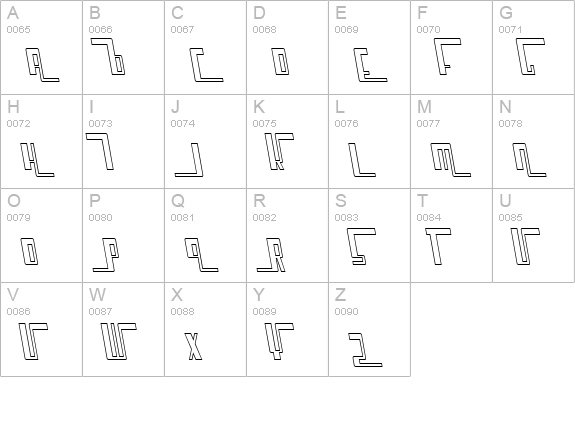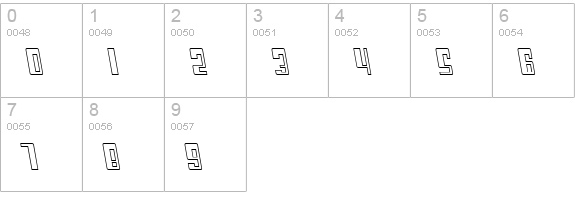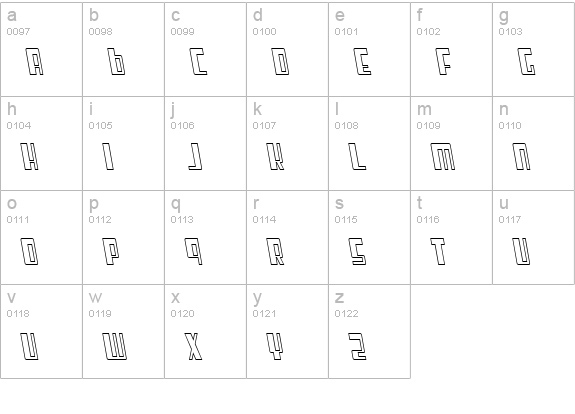
Cosmic Age Outline Italic Font Details
Cosmic Age Outline Italic is a distinctive, italic variant in the Cosmic typeface family \xE2\x80\x94 well suited to design and typography projects.
Introducing Cosmic Age Outline Italic font, a captivating and futuristic typeface that will transport your designs to new dimensions. With its sleek and modern appearance, it exudes a sense of cosmic energy and sophistication. The italicized outline adds a dynamic touch, perfect for creating eye-catching headings, titles, and logos. This unique font is not only visually stunning but also versatile, suitable for a wide range of design projects. Whether you're working on posters, websites, branding materials, or any other creative endeavor, Cosmic Age Outline Italic font will elevate your work to cosmic heights. And the best part? It's completely free! You can easily download this font at FontsMarket.com and start using it in your projects right away. Don't miss out on the opportunity to add a touch of cosmic flair to your designs with Cosmic Age Outline Italic font.